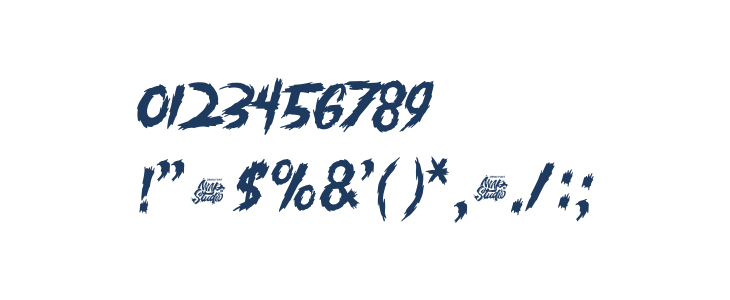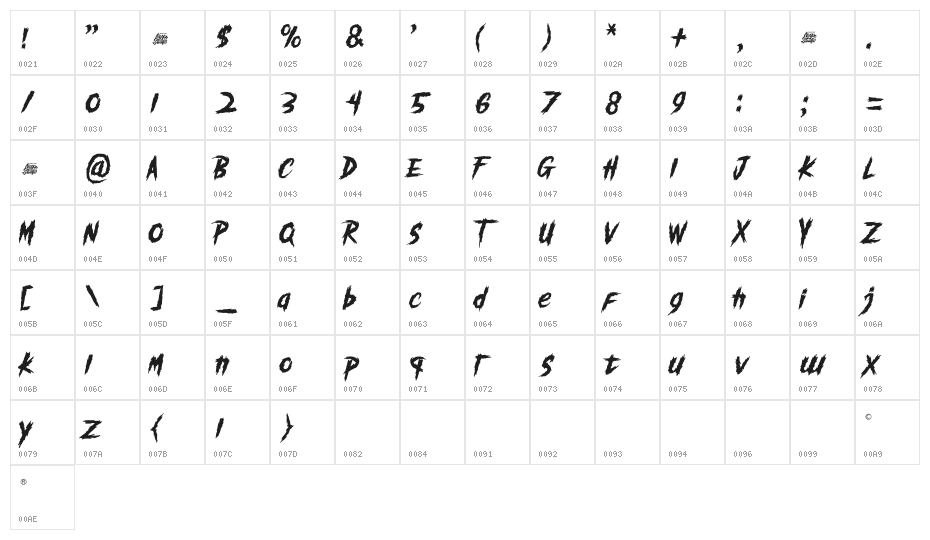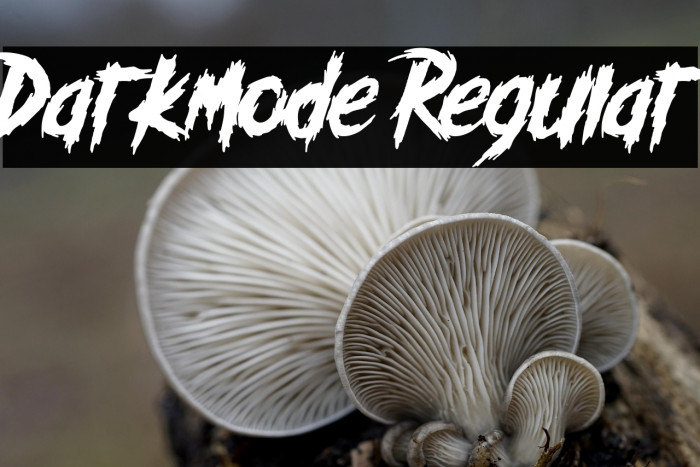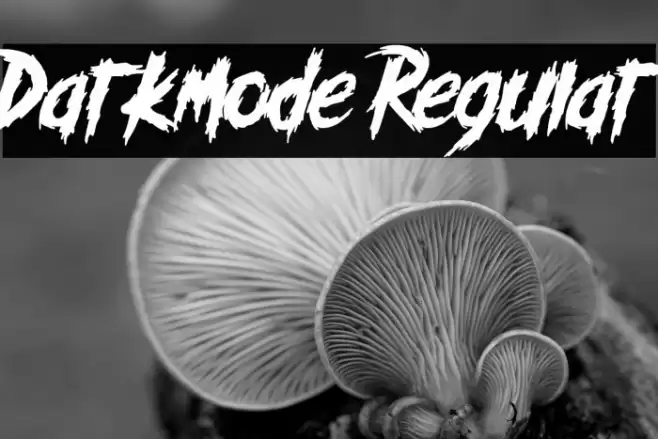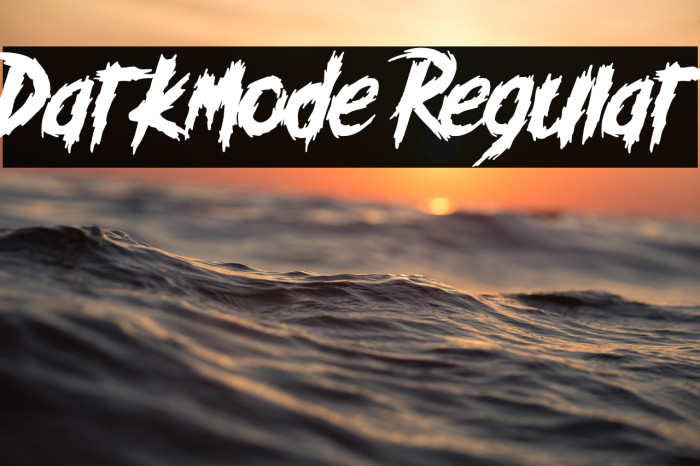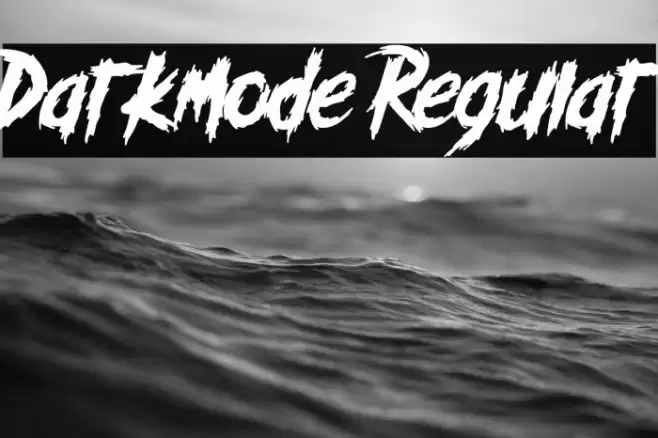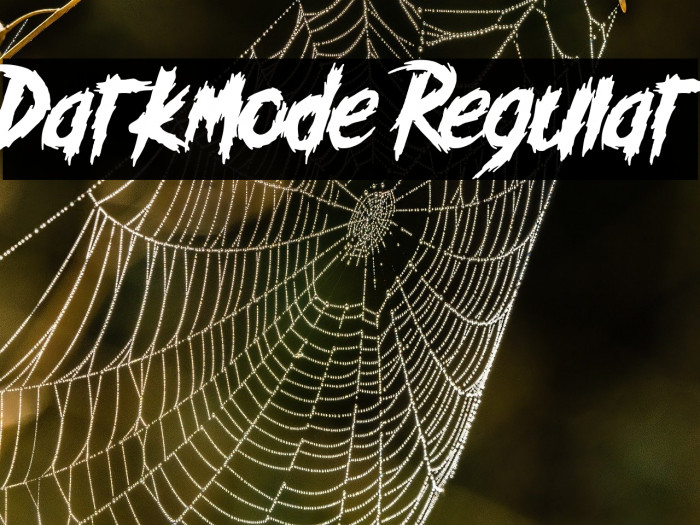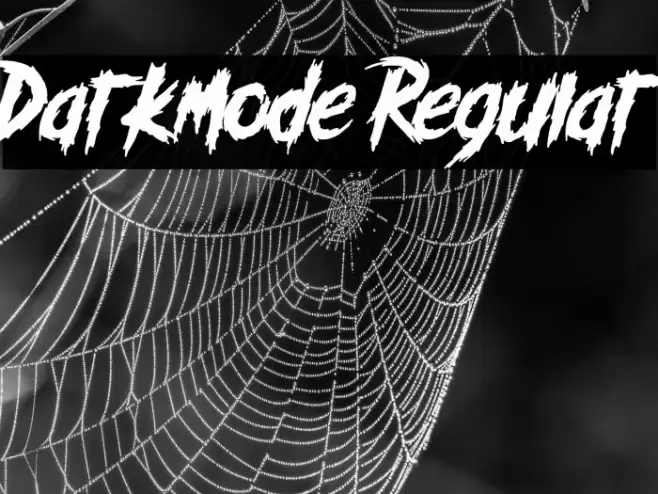
Darkmode Regular Font
Darkmode Regular Description
This font features a bold, aggressive style with sharp, jagged edges that give it a dynamic and energetic appearance. The letters are highly stylized, resembling brush strokes or claw marks, which adds a sense of movement and intensity. The uppercase and lowercase letters maintain a consistent design, ensuring readability while still conveying a sense of raw power. The numbers and special characters follow the same aesthetic, making them suitable for a cohesive design. This font is ideal for projects that require a strong visual impact, such as posters, album covers, or branding for edgy products.
Overall StyleModern, Energetic
Proposed ProjectsIdeal for posters, album covers, branding, and any design needing a strong visual impact.